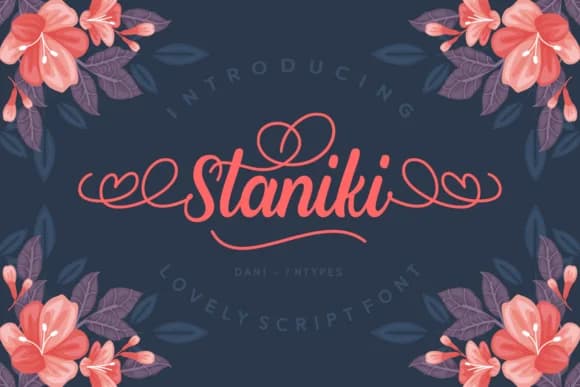
You're laying out a wedding invitation suite and need script that feels handmade but won't fall apart under scrutiny. Staniki Font by Dani (7NTypes) delivers exactly that: a flowing script with intricate swashes that brings genuine character without tipping into chaos. Built-in alternates let you swap out letters to keep repeating words fresh, creating natural visual variety across an entire suite of cards.
This script shines on invitation suites, restaurant menus, and Etsy product labels where a human touch truly matters. Boutique skincare packaging, letterpress designs, DIY craft signage, and custom greeting cards all benefit from its careful balance of elegance and readability. The font performs cleanly at large display sizes without the spacing struggles that plague more aggressive scripts, since its ornamental details stay deliberately restrained rather than overwhelming.
What really sets Staniki apart is how thoughtfully it handles flourish: the overall design feels intentional and refined rather than defaulting to generic script. Those ornamental touches catch light beautifully on print work, which matters when your cards and labels are headed to actual production. Grab it on Creative Fabrica and start building something with real personality.
Staniki Font is a script font that shines as a display or heading face. Pair it with a clean sans-serif or serif font for body text β the contrast creates a clear hierarchy while the two styles stay balanced and easy to read.